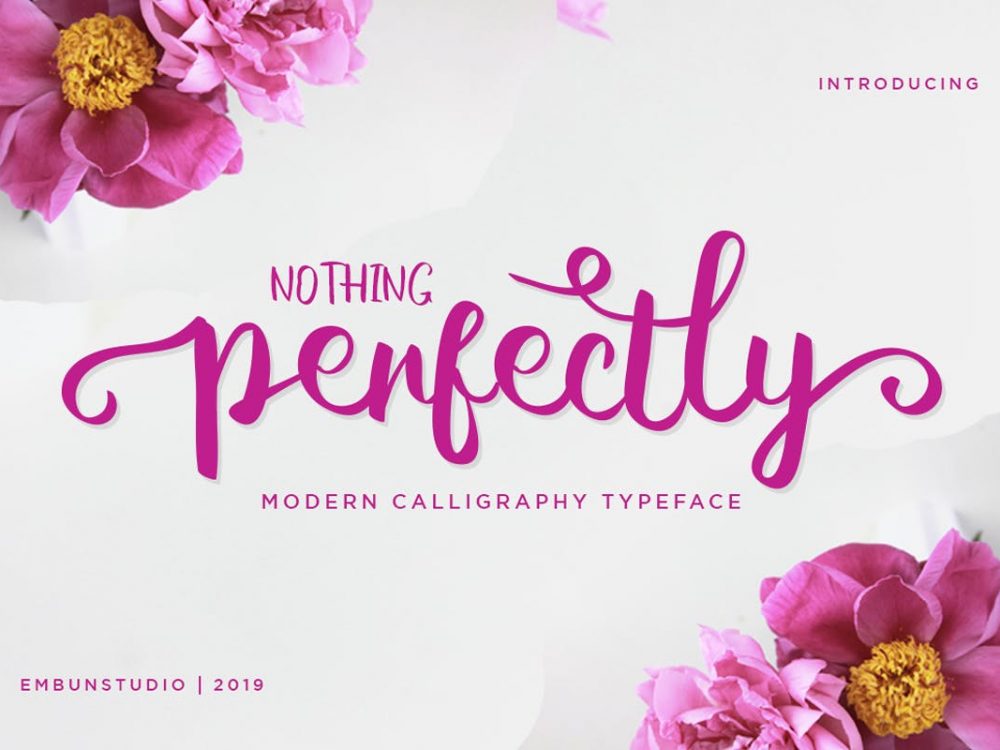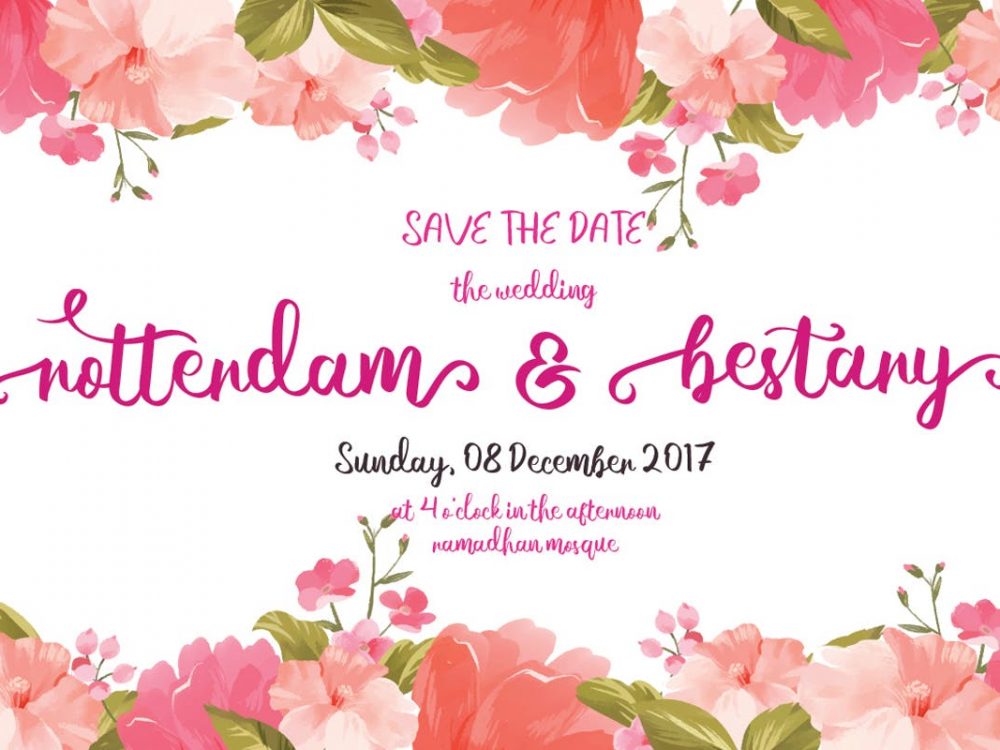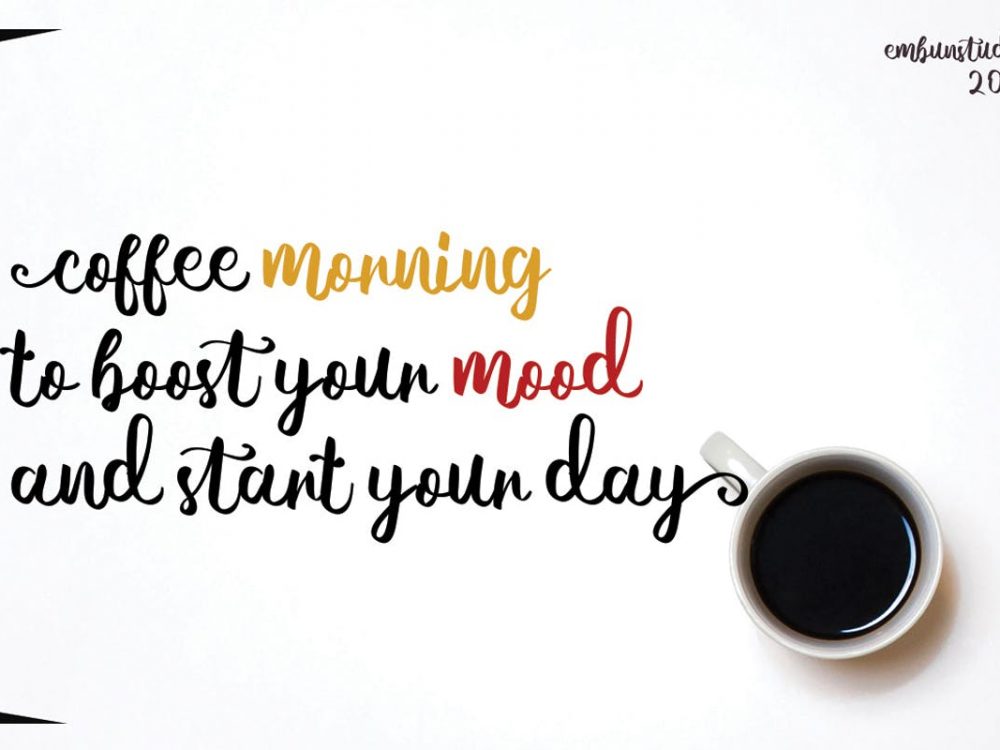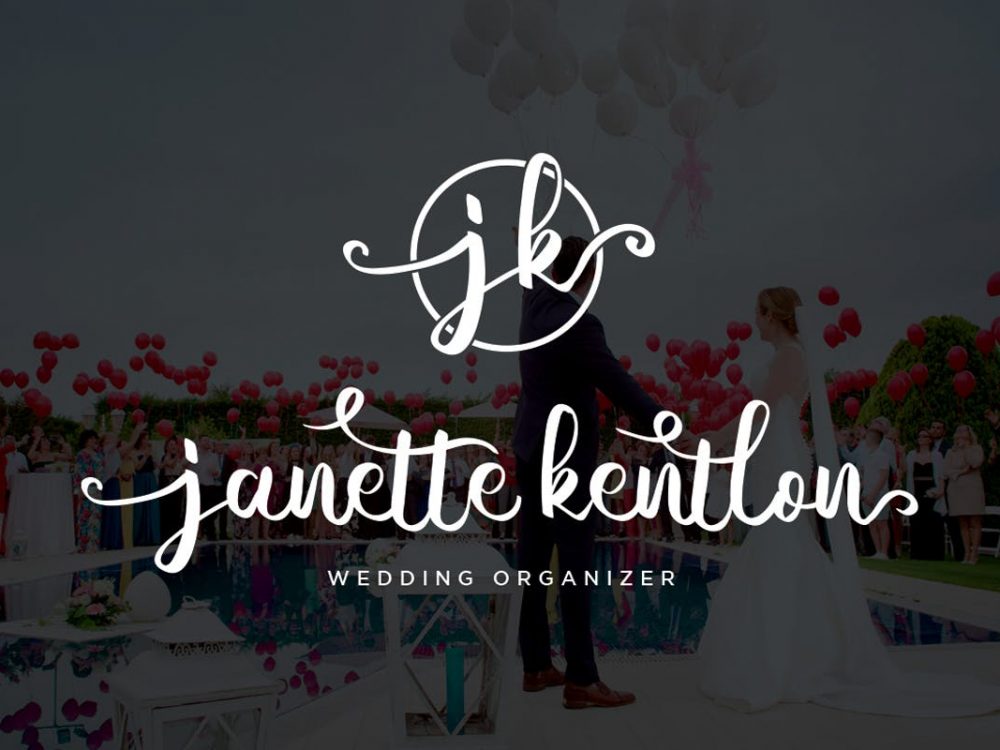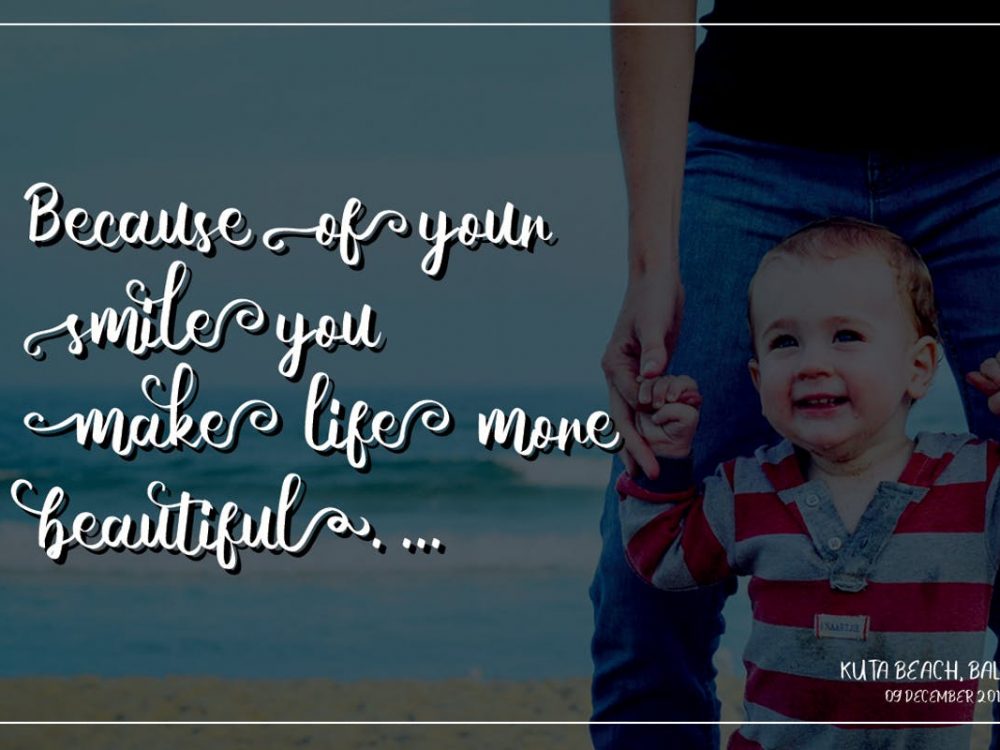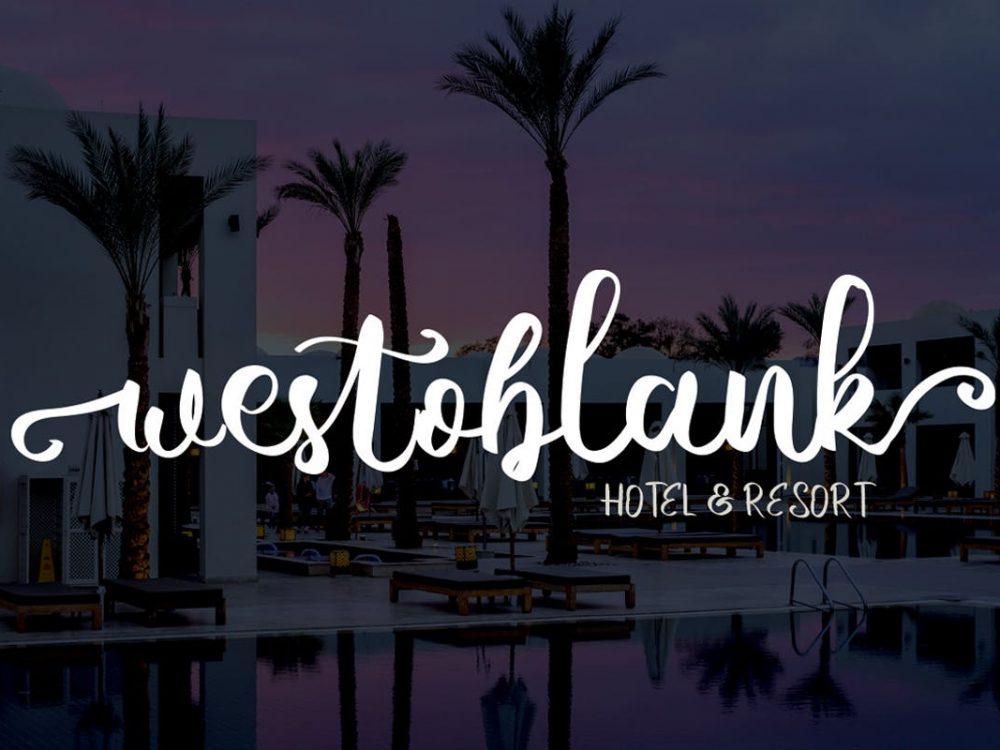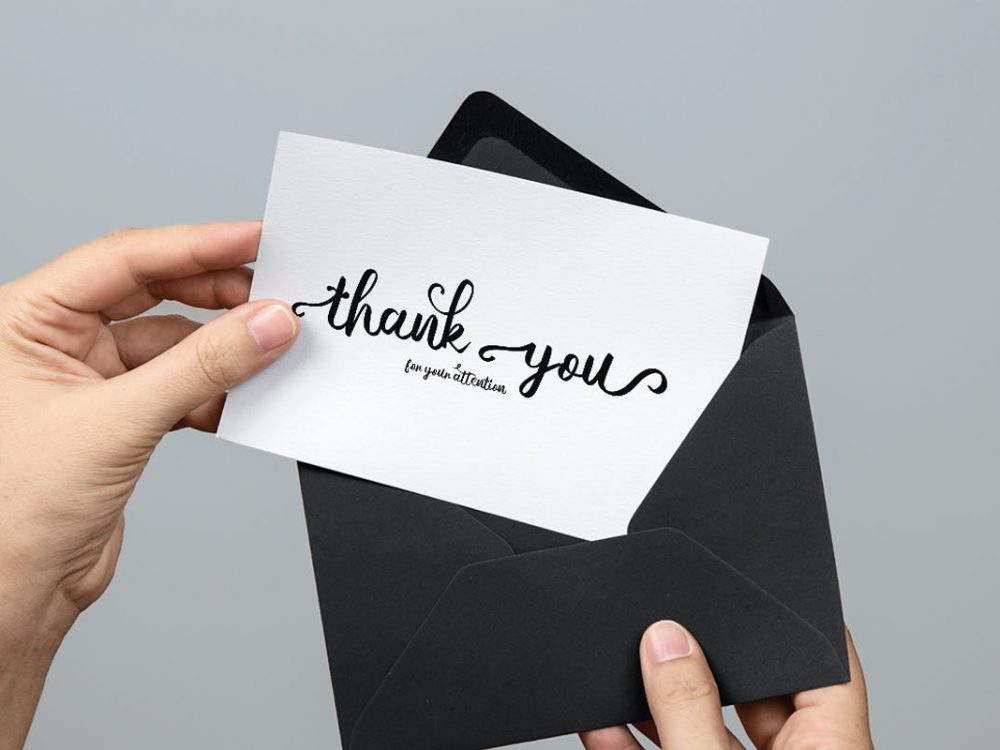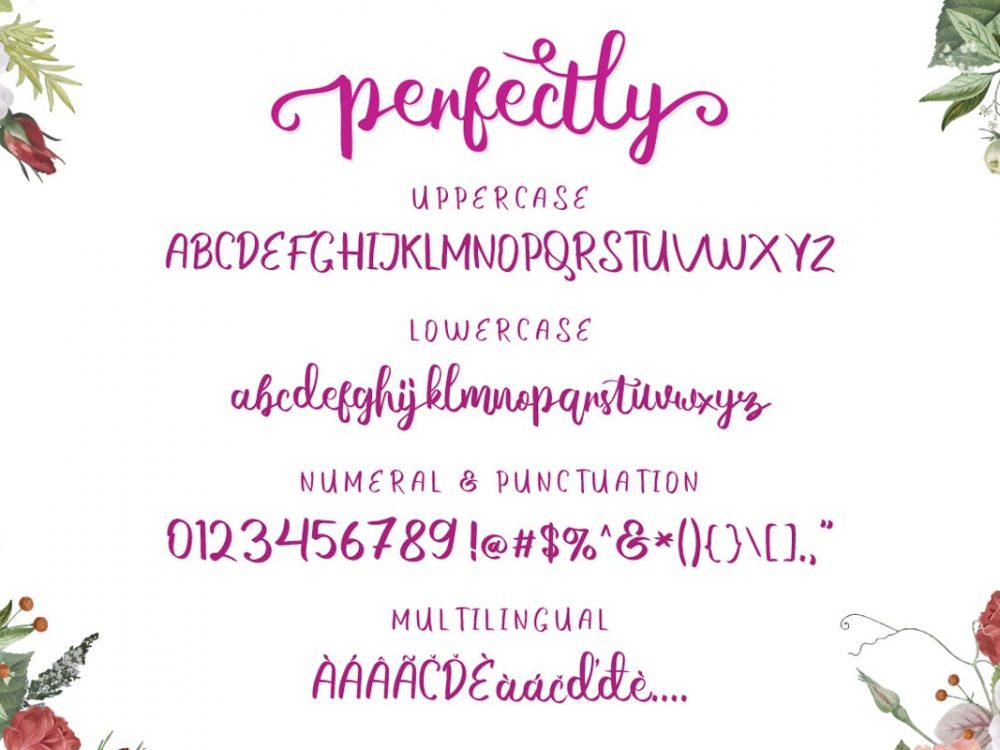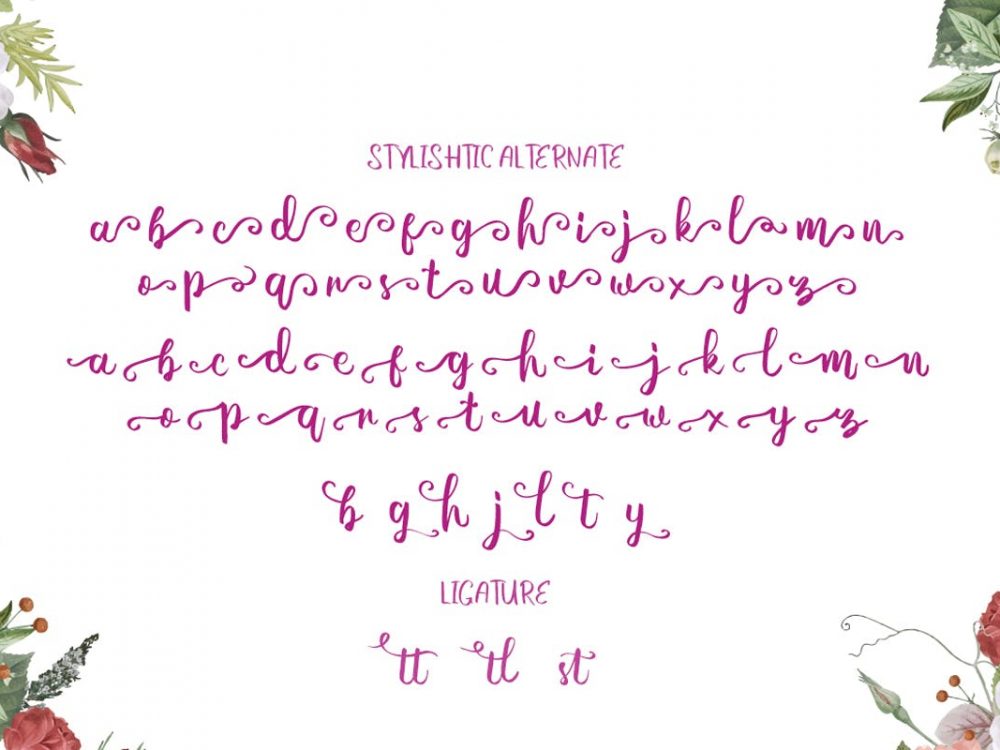
Free Perfectly Script Font
Free Perfectly Script Font is a beautiful and interesting handwritten font that compares favorably with other fonts with an elegant calligraphic style and will help you create unique design projects and improve your professional level. Use this font to create memorable posters, wedding invitations, cards, branding, flyers, and more.